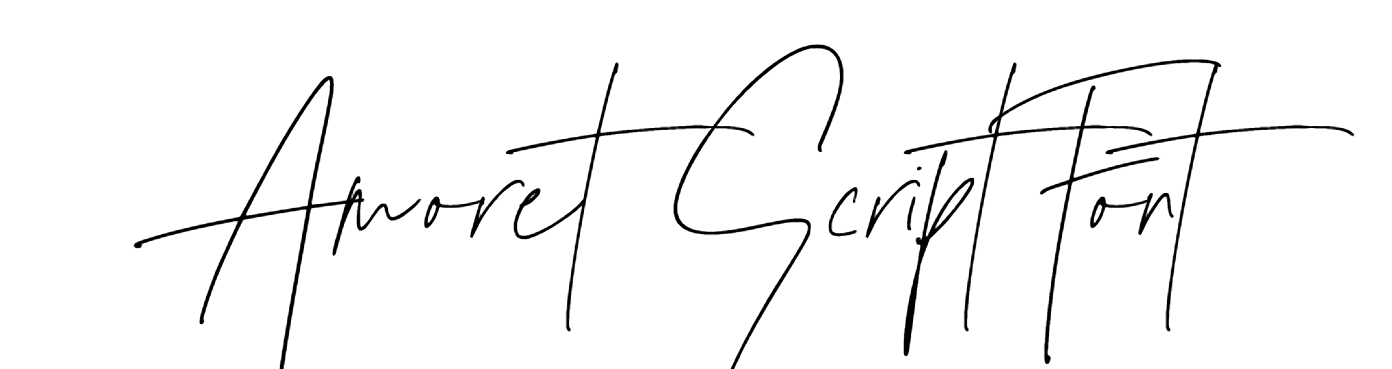
Amoret Script Font
Amoret Script is a handwritten font created by Sam Parrett at Set Sail Studios and released through Set Sail Studios Ltd. The letters have the small wobbles and personality of real handwriting, so your text feels warm instead of printed. It's a free download, and you can try it with your own text in the preview above first.
• Designer: Sam Parrett at Set Sail Studios
• Publisher: Set Sail Studios Ltd
• Category: Handwritten font
• Font styles: 1 (Regular)
• Glyphs: 234
• Characters: A–Z, a–z, 0–9 and basic punctuation
• Languages: English, Spanish, French, German, Portuguese and Italian
What You Can Type With Amoret Script
You get every letter from A to Z in both cases and all the numbers from 0 to 9, which means Amoret Script can handle full sentences, dates and prices. Everyday marks like &, !, ? and @ are there too. Thanks to its accented letters, it also works for Spanish, French, German, Portuguese and Italian, not just English.
Where Amoret Script Works Best
Amoret Script is a natural fit for greeting cards, journal pages and friendly social posts. Set it a bit larger than you would a normal text font. Handwriting styles lose their charm once they get too small to read comfortably.
Does Amoret Script support accented letters?
Yes. Amoret Script includes the accented letters needed for Spanish, French, German, Portuguese and Italian, so it works for more than just English.